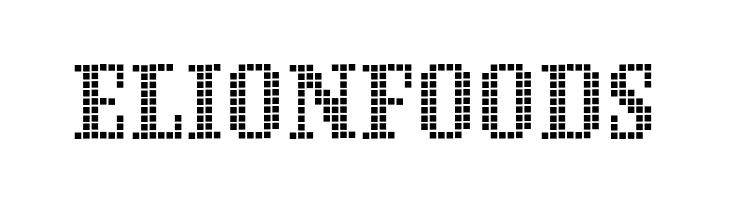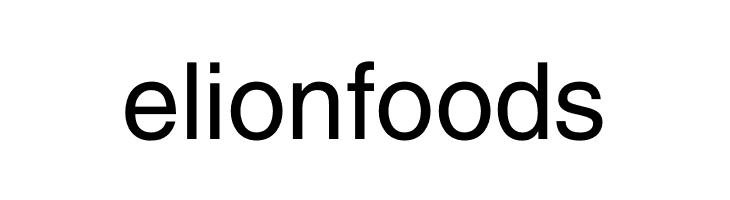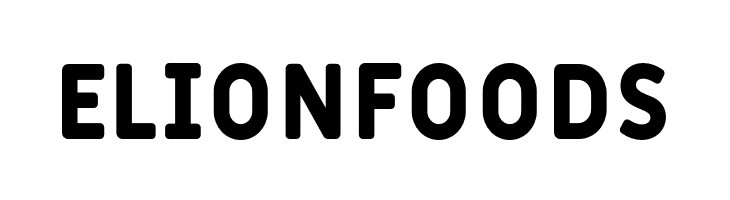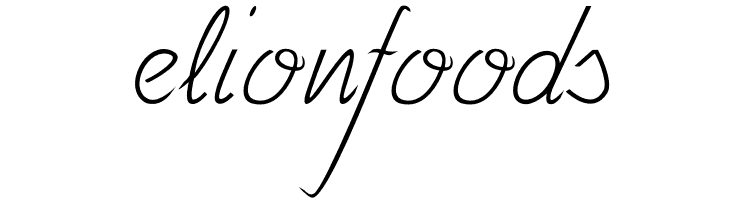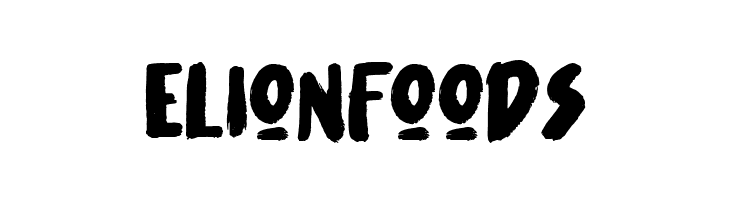
A bold, cursive font with smooth, flowing lines and a modern yet classic script style.
A pixelated, digital-style font with a retro video game feel.
A bold, decorative font with vintage flair and high contrast strokes.
A bold, rounded font with a modern and friendly style.
Tactile dot-based system for accessible reading.
A cursive, elegant font with flowing, connected characters.
A playful and artistic font with unique decorative elements and a modern flair.
A modern, geometric font with a clean and minimalist design.
A bold, hand-painted style font with an italicized, energetic appearance.